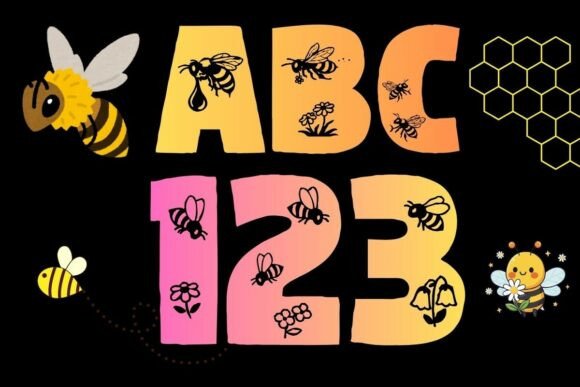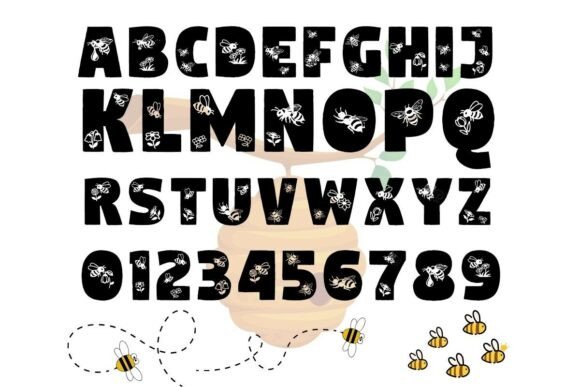
Introduction to Bee Hive Font
🐝 Buzz with creativity using the Bee Hive font, a playful and thematic display face that brings a hive of personality to your designs.
Busy Bees Font is a fun, whimsical decorative font inspired by buzzing bees, honeycombs, and sweet handmade charm Each letter has a bold, playful personality, making it perfect for crafts, kids’ designs, apparel, stickers, classroom projects, and cheerful branding.
Why Choose Bee Hive Font?
Bee Hive Font offers exceptional quality and versatility, making it a valuable addition to your design toolkit. Whether you’re creating for personal projects or commercial use, Bee Hive Font delivers professional results.